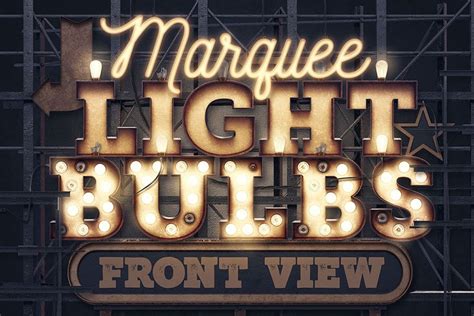
35+ Best Marquee Fonts (FREE / Premium) 2022 Hyperpix
Marquee Font Dafont. Modeled after vintage fairground attraction signs, budmo projects festivity. Web the time is now 11:25.
35+ Best Marquee Fonts (FREE / Premium) 2022 Hyperpix
Modeled after vintage fairground attraction signs, budmo projects festivity. Browse by alphabetical listing, by style, by author or. Web the time is now 11:25. Archive of freely downloadable fonts. Modeled after vintage fairground attraction signs, budmo projects festivity.